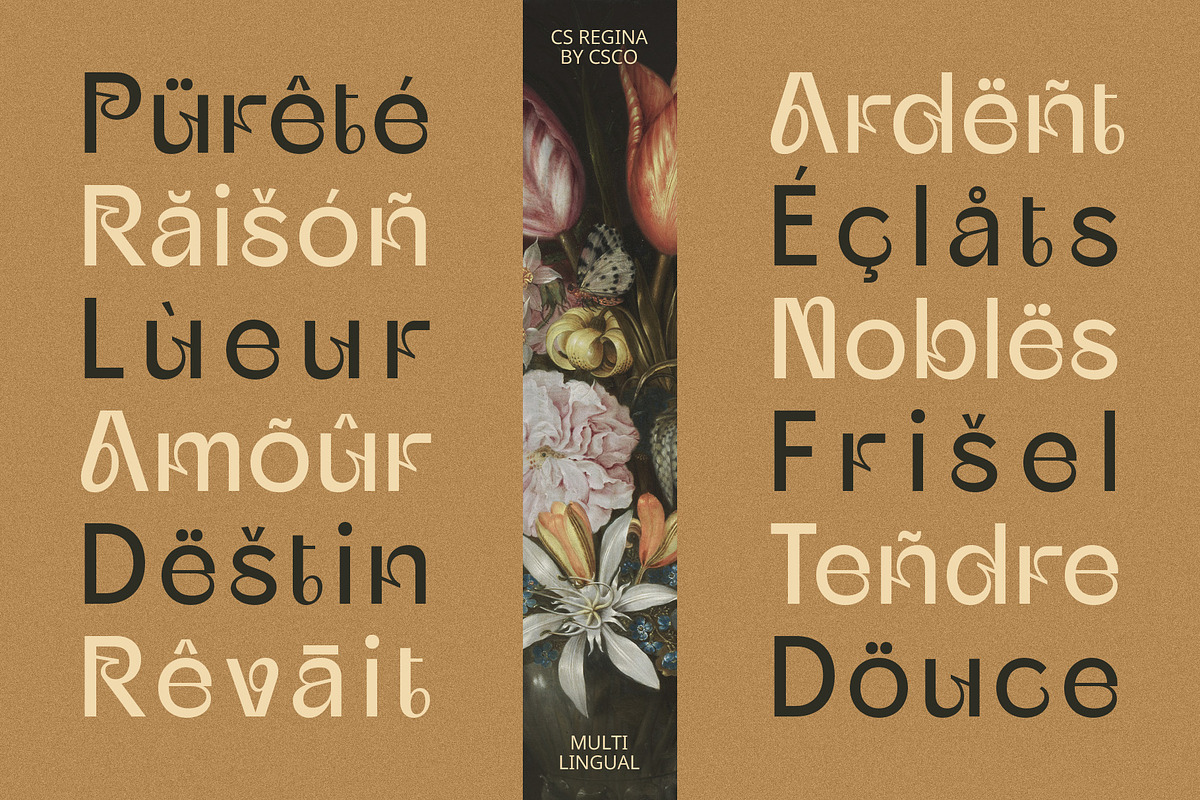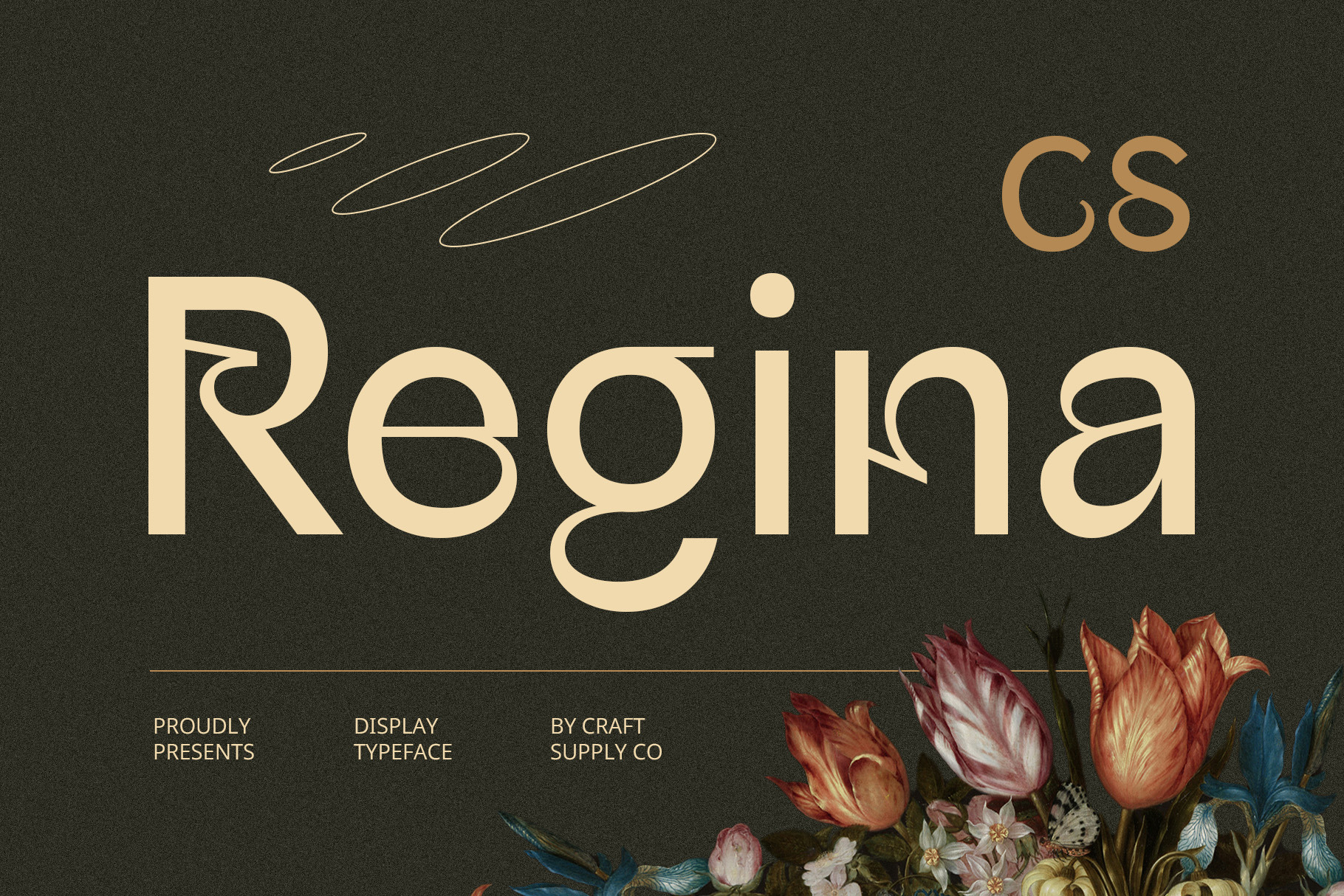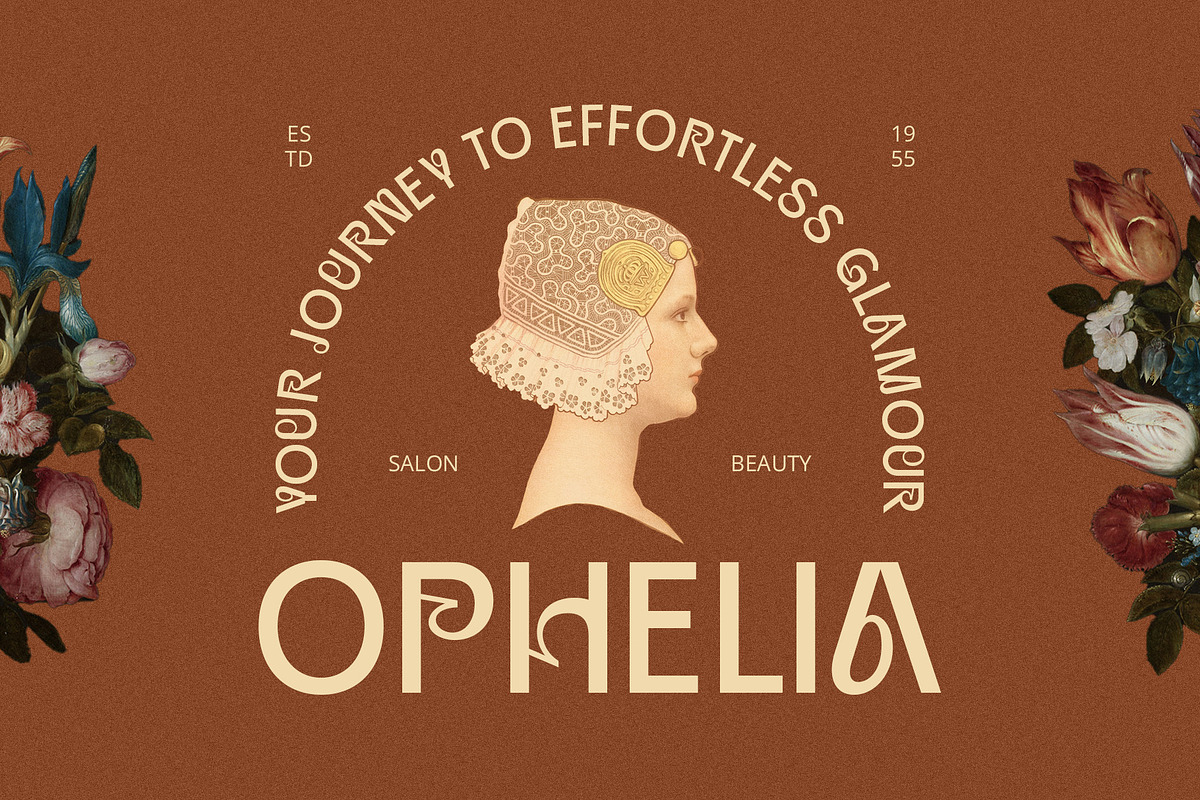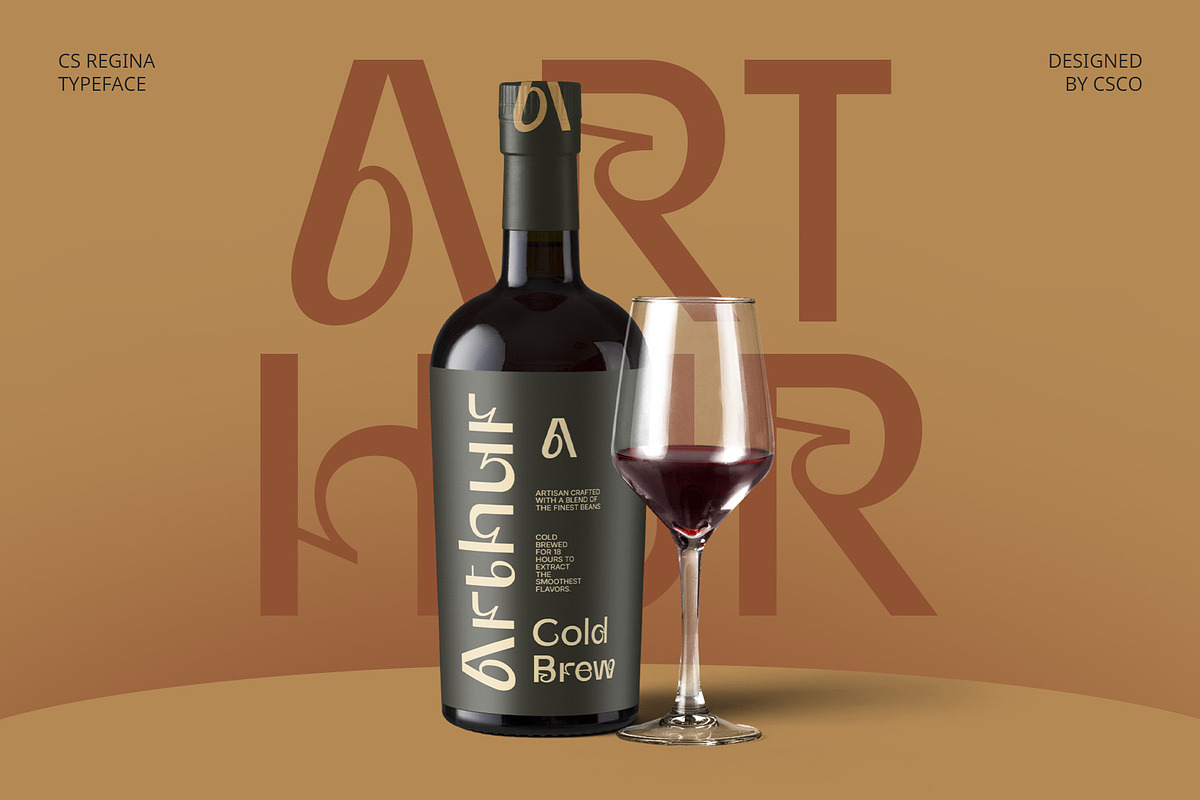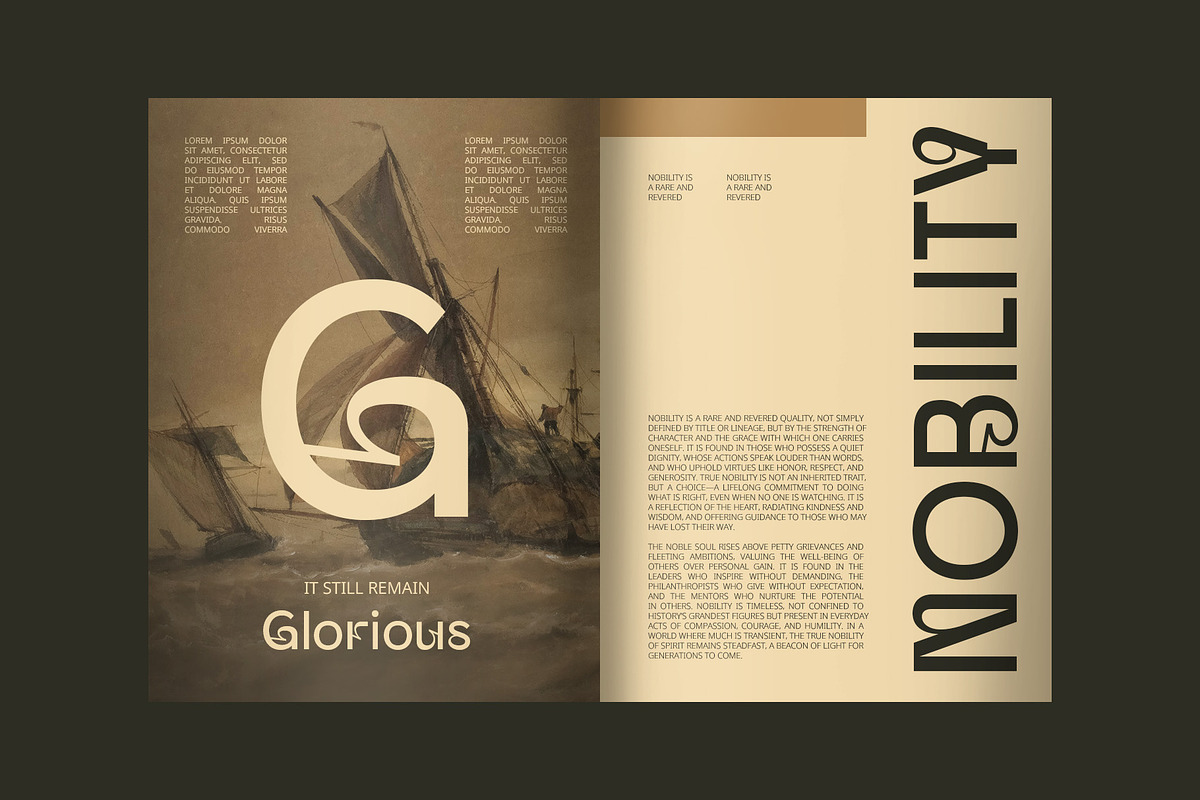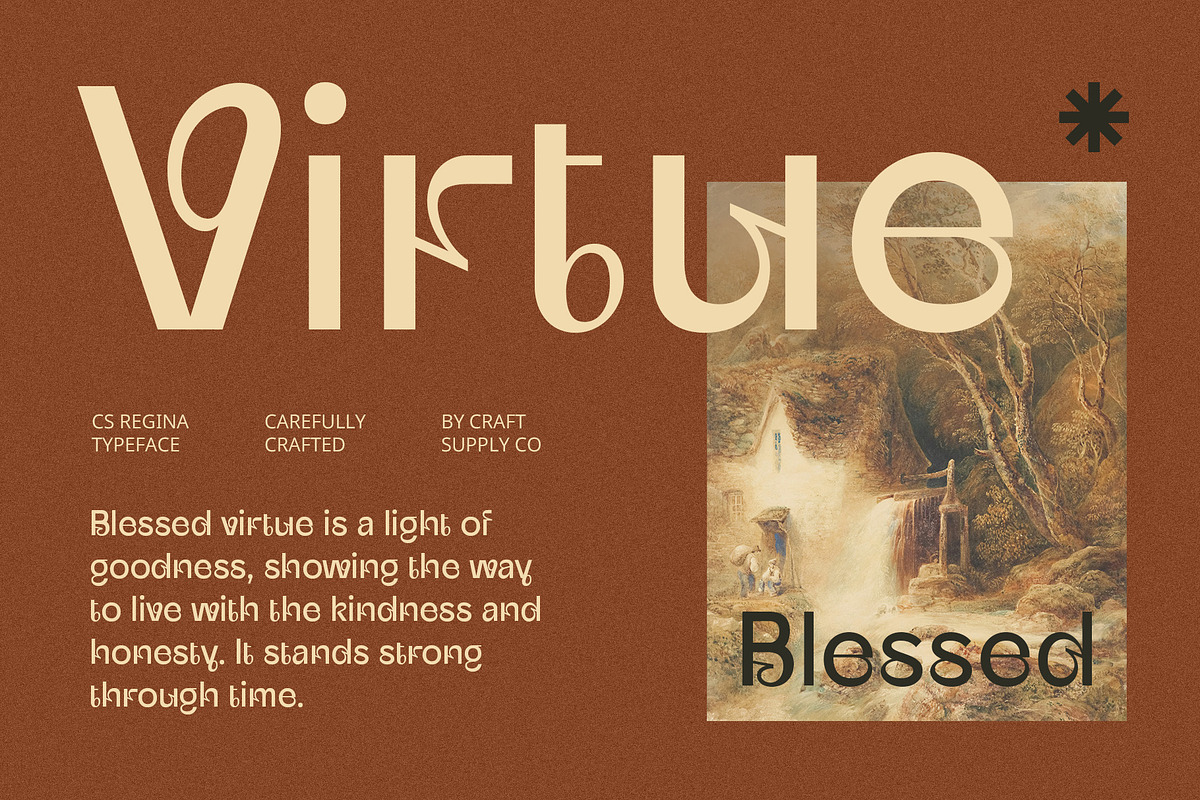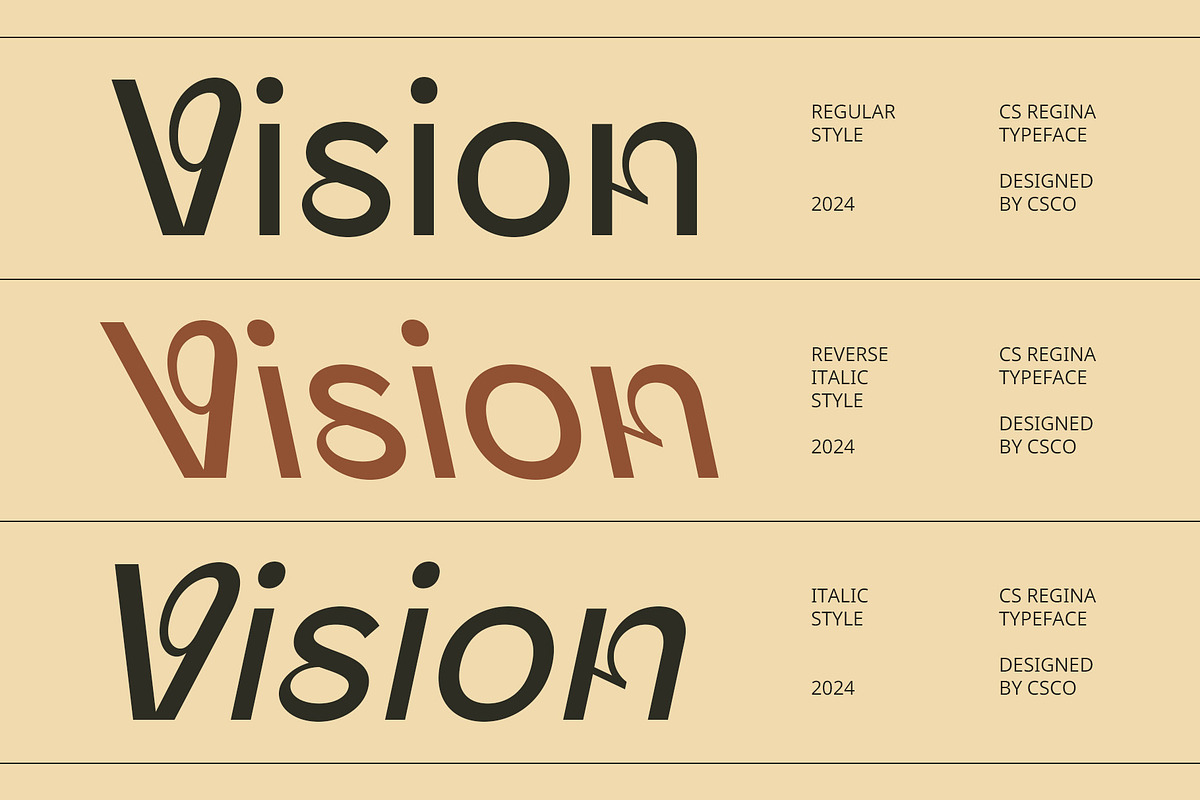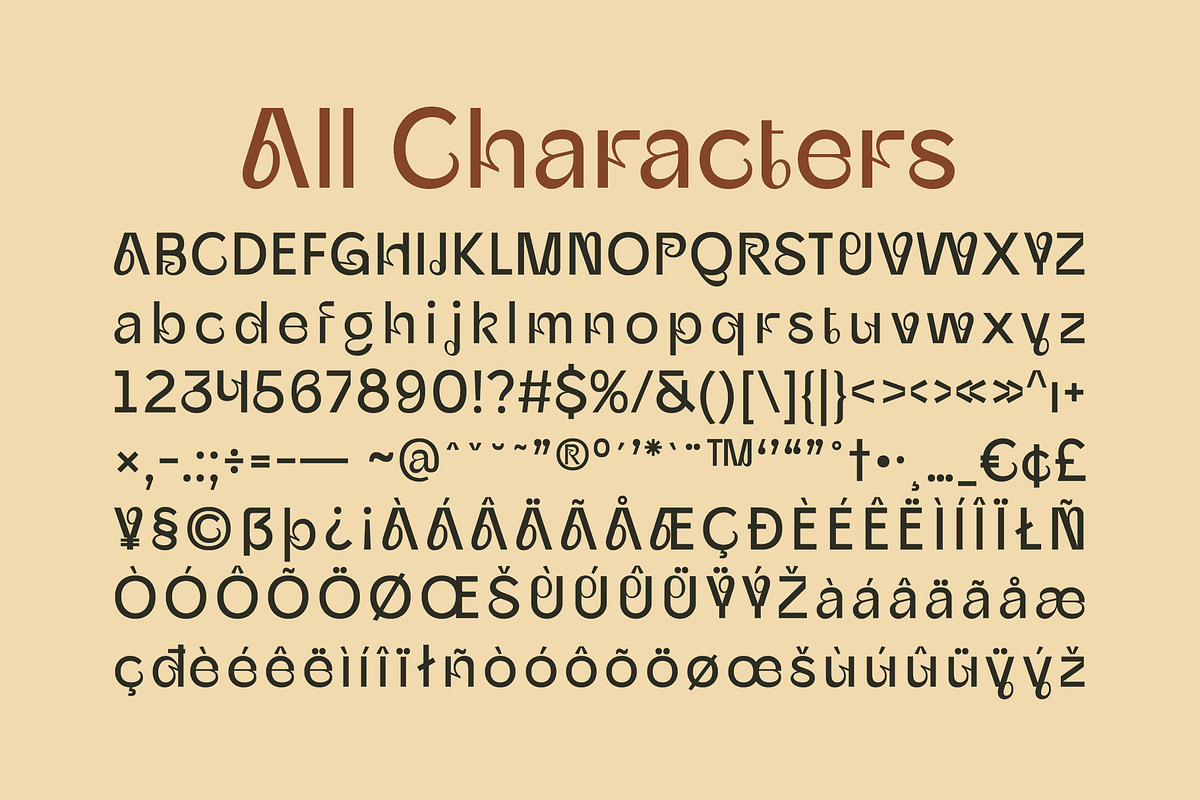
CS Regina – Art Nouveau Font
CS Regina – Art Nouveau-Inspired Sans-Serif Font
Elegant, Flowing Design with Artistic Charm CS Regina is an Art Nouveau-inspired sans-serif display font that draws from the beauty and grace of the late 19th-century artistic movement. With its smooth, flowing letterforms and intricate ornamentation, this font captures the essence of organic beauty, weaving in elements of nature such as flowers, leaves, and tendrils. The soft, curved lines and symmetrical shapes create a mesmerizing visual appeal, offering a perfect blend of classic and contemporary elegance.
Natural and Intricate Aesthetic The unique design of CS Regina features highly detailed, organic forms, bringing the essence of natural beauty to typography. The harmonious, fluid curves add a sense of movement, while the delicate yet bold design captures the essence of the Art Nouveau style. Ideal for projects that require a touch of refinement and charm, this font elevates the aesthetic of any design, making it a perfect choice for artistic branding or high-end visual projects.
Perfect for Beauty, Art, and Elegance CS Regina is ideal for designs focused on beauty and elegance, from branding beauty products and book covers to art exhibition posters and promotional materials. Its graceful design imbues a sense of luxury and sophistication, while the flowing letterforms exude an enchanting, dreamlike quality. This font’s visual style creates a captivating and harmonious atmosphere.
- CS Regina Regular
- CS Regina Italic
- CS Regina Reverse Italic